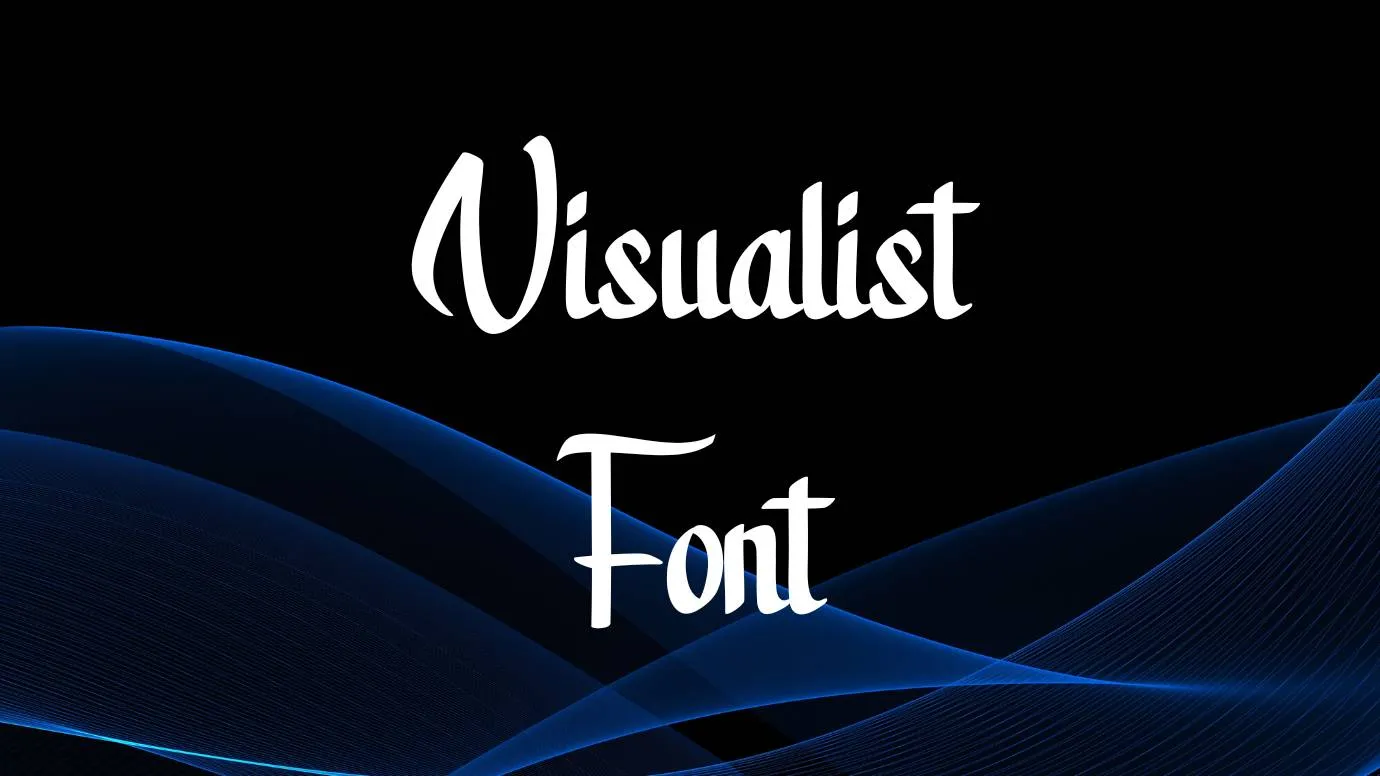
Visualist Font Family is a bold script-look typeface. Noah Type is a well-known and famous foundry that work up for the creation of this font family. This font family is suitable for use in calligraphy-type design projects.
Visualist Font